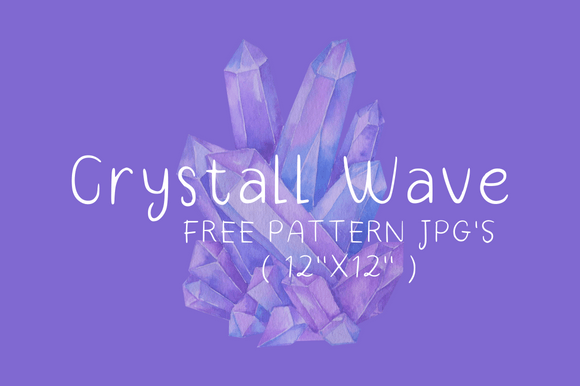
Introducing Crystall Wave Font, the ultimate choice for those seeking the best font for surveys paper! Created by the talented sweetsparkles, this display font embodies the perfect blend of cuteness and attractiveness that will captivate your imagination.
With its playful and charming style, Crystall Wave Font injects a touch of whimsy into any project, instantly bringing a sense of joy and delight. The adorable and bubbly letters dance across the page, creating a magical experience that appeals to both young and old alike.
Imagine the enchantment that awaits as you embark on a journey through the pages of a children's book. Crystall Wave Font effortlessly brings characters to life, transforming ordinary words into captivating tales. The vibrant and animated nature of this font will leave children mesmerized, eager to dive into the magical worlds you create.
Not limited to the realm of storytelling, Crystall Wave Font is also perfect for invitations that deserve a touch of cuteness and joy. Whether it's a birthday party, a baby shower, or a whimsical wedding, this font adds a sprinkle of magic to your event, setting the stage for unforgettable memories.
But the charm of Crystall Wave Font extends beyond the realm of the imagination. Its eye-catching appeal makes it an ideal choice for businesses looking to leave a lasting impression. From logo designs to product packaging, this font effortlessly captures attention, conveying a sense of playfulness and approachability that sets your brand apart.
As an e-commerce SEO expert, I understand the importance of utilizing the power of keywords. That's why Crystall Wave Font is the perfect choice for those in search of the best font for surveys paper. Its captivating style combines elegance with a touch of fun, making it ideal for academic projects, research papers, and surveys that demand attention.
In summary, Crystall Wave Font is not just another display font – it's a gateway to a world of whimsy, joy, and creativity. Its cute and attractive design is a breath of fresh air, adding a sprinkle of magic to any project. So, embrace the captivating charm of Crystall Wave Font and let your imagination soar!